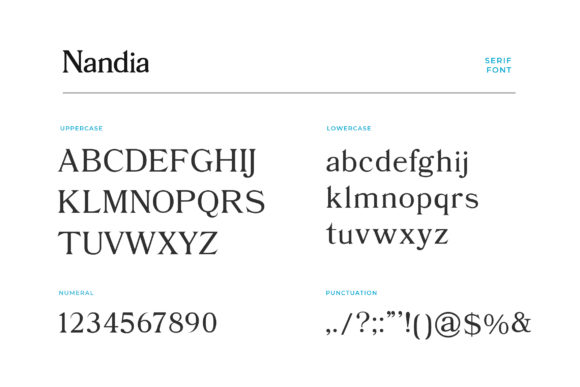
Introduction to Nandia Font
Have you ever found yourself stuck in the creative process, struggling to find the perfect design element to bring your project to life? I know I have. It’s that moment of frustration when everything seems to be missing that special something – until you stumble upon the Nandia Font.
This modern, thin, and delicate serif font is a game-changer for designers. Its versatility and high quality make it an ideal design resource for a wide range of creative projects. Whether you’re working on a branding campaign, a website, or even a simple graphic, the Nandia Font can add a touch of sophistication and elegance to your work.
Key Features of Nandia Font
- High-quality, professional font design suitable for creative projects and presentations
- Unique, elegant design with a transparent background, ideal for overlaying text on images or videos
- Supports a wide range of languages, making it a versatile font for international projects
- Comes in a range of font sizes and styles, allowing for flexibility in creative projects and presentations
Honest Review: Nandia Font
I recently came across the Nandia Font while searching for a high-quality design resource for a creative project. After using it for a few days, I’m excited to share my honest review.
- ✨ High-quality font with a unique and modern design
- ✨ Compatible with a wide range of operating systems and devices
- ✨ The font comes with a transparent background, making it easy to integrate with any design
- ⚠️ The font only comes in a single weight, which may limit its versatility in certain design applications
- ⚠️ Some users may find the font’s modern design too bold or overpowering for certain creative projects
Overall, I’m impressed with the Nandia Font and would recommend it to designers looking for a high-quality, free design resource. While it may have some limitations, its unique design and versatility make it a valuable addition to any design toolkit.
Tips for Getting the Most Out of Nandia Font
Use Nandia Font in conjunction with other high-quality design resources to create a cohesive and visually appealing design. Experiment with different font sizes, colors, and styles to add depth and interest to your project. Consider using Nandia Font in conjunction with a transparent background to create a modern and sleek look.
The Nandia Font is ideal for a variety of creative projects, including logos, business cards, brochures, and presentations. Its high-quality design and transparent background make it perfect for use in digital and print media.